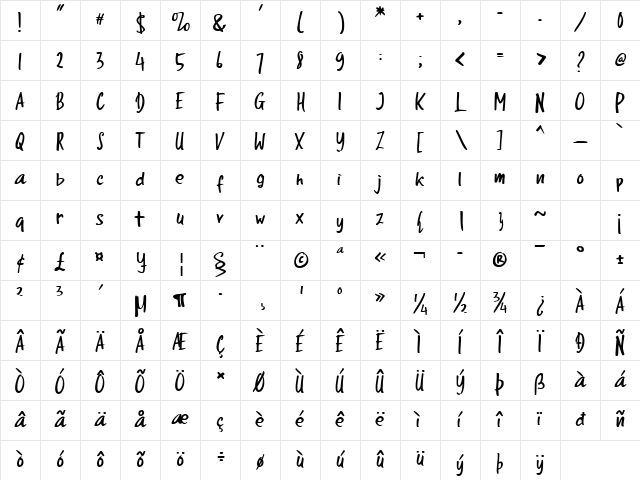
Karikature Regular
Designer: Kurnia Setyadi
Design Context for Karikature
Karikature is a composed and adaptable typeface that performs quietly and consistently across a wide range of design contexts.